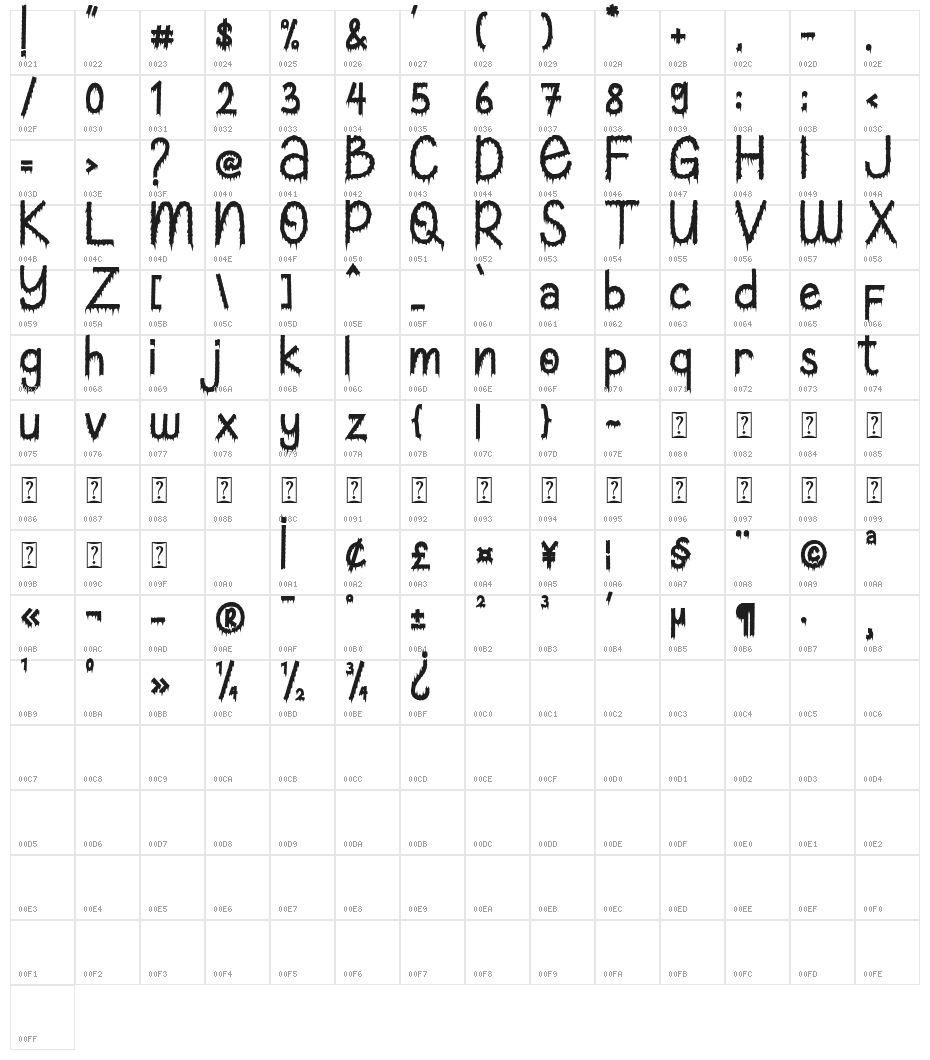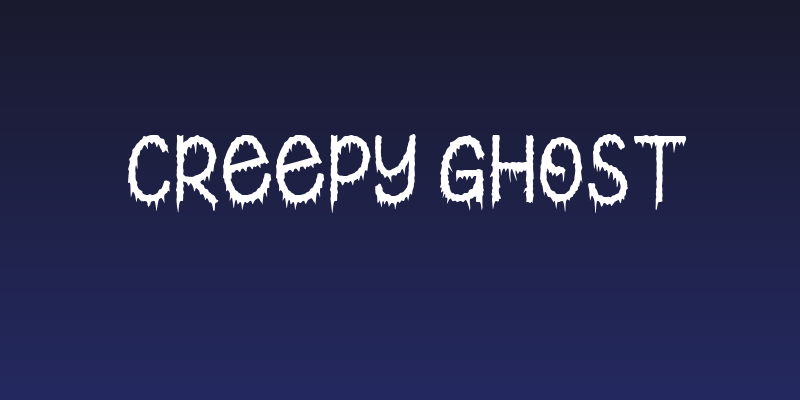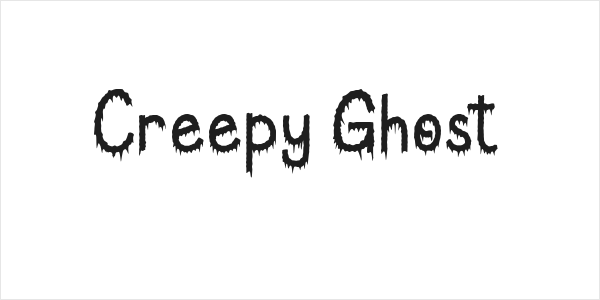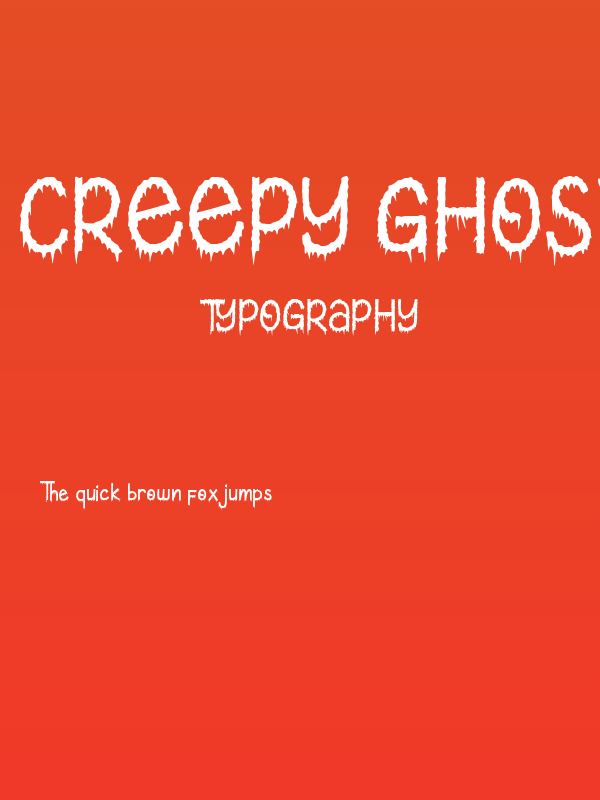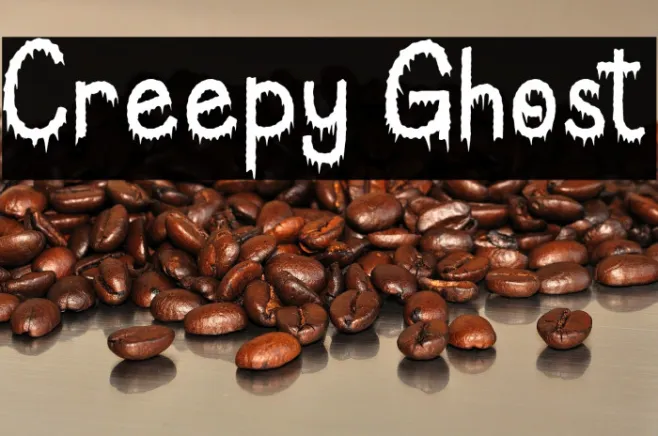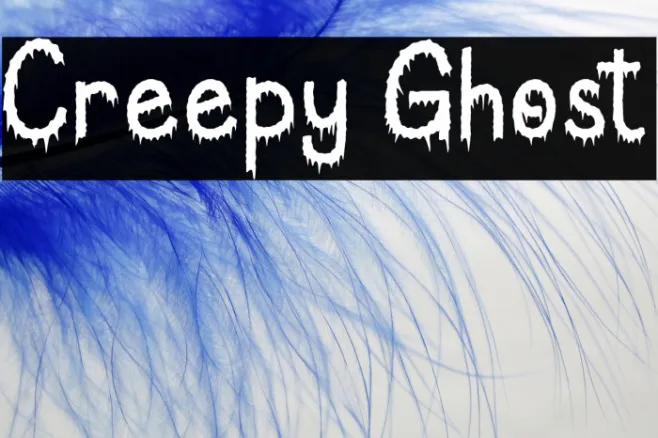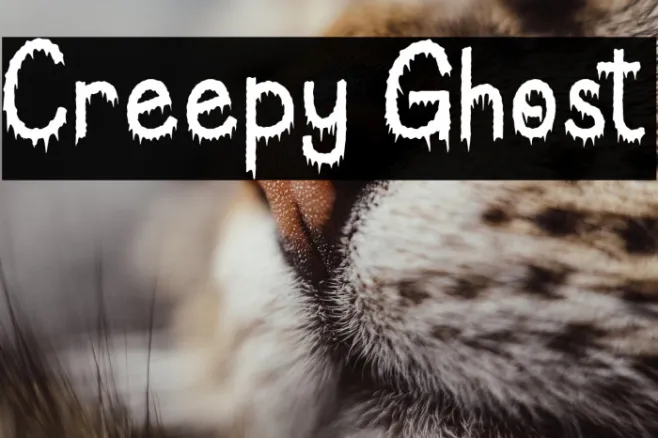
Creepy Ghost Font
Creepy Ghost Description
This font features a spooky, dripping design that evokes a sense of horror and mystery. The characters have jagged edges and irregular shapes, resembling melting or dripping liquid, which adds to its eerie appearance. The uppercase and lowercase letters maintain a consistent style, with each character appearing as if it is slowly dissolving. The numbers and special characters follow the same theme, ensuring a cohesive look across all text elements. This font is perfect for Halloween-themed projects or any design that requires a chilling, ghostly aesthetic.
| Proposed Projects | Ideal for Halloween invitations, horror movie posters, haunted house flyers, and spooky-themed merchandise. |